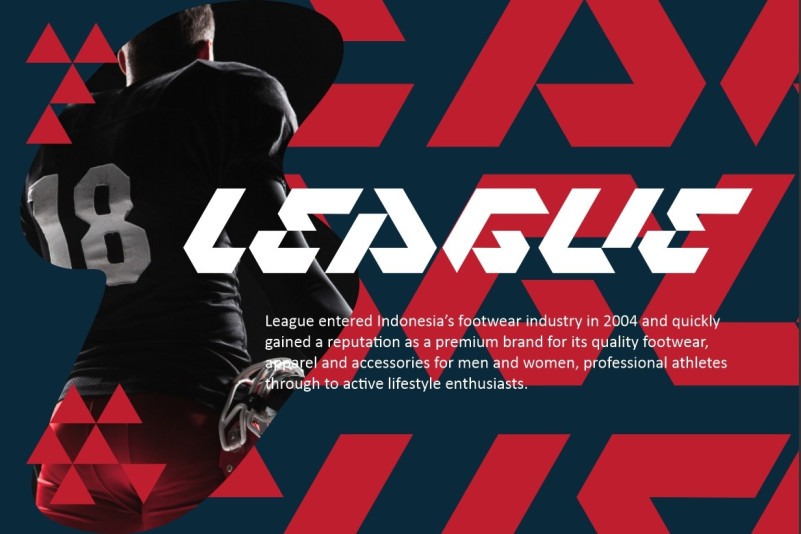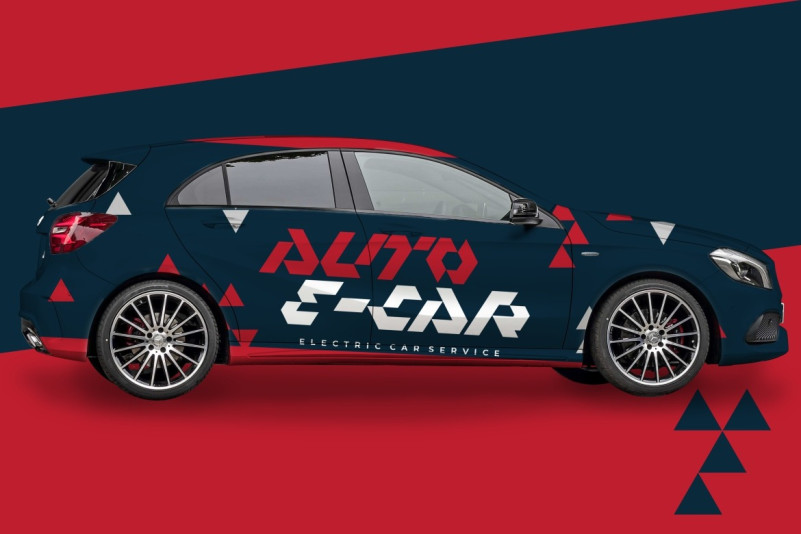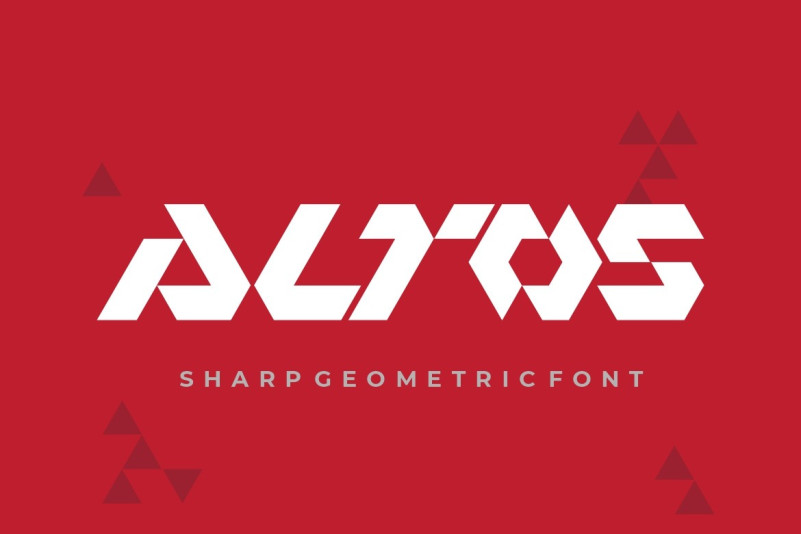
Altos Font
ALTOS – Modern logo typeface! is a modern bold font with geometric style that will make your design looks modern and futuristic. You can use this font for any purpose, especially to make logotype like a car sports or football logo brand.